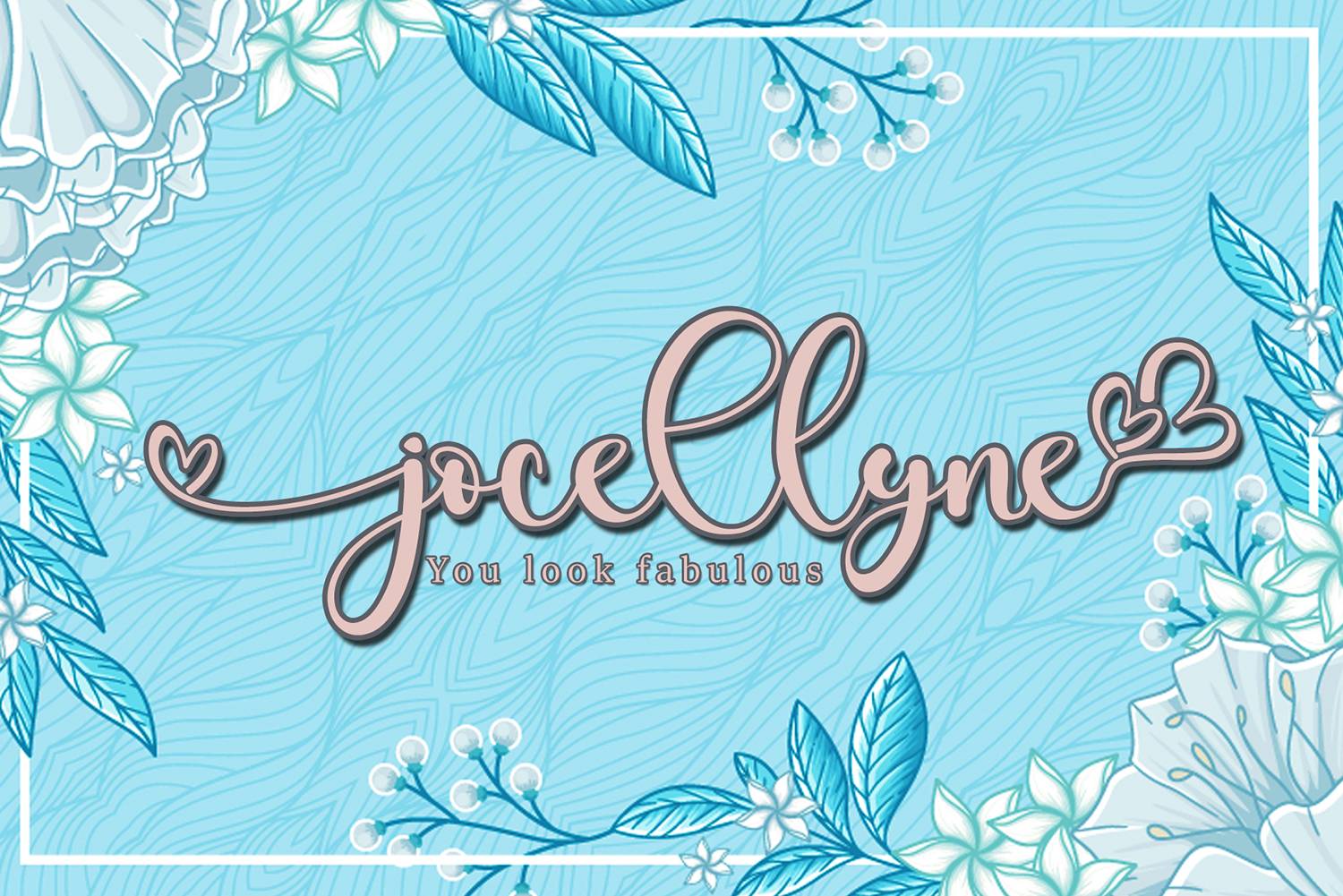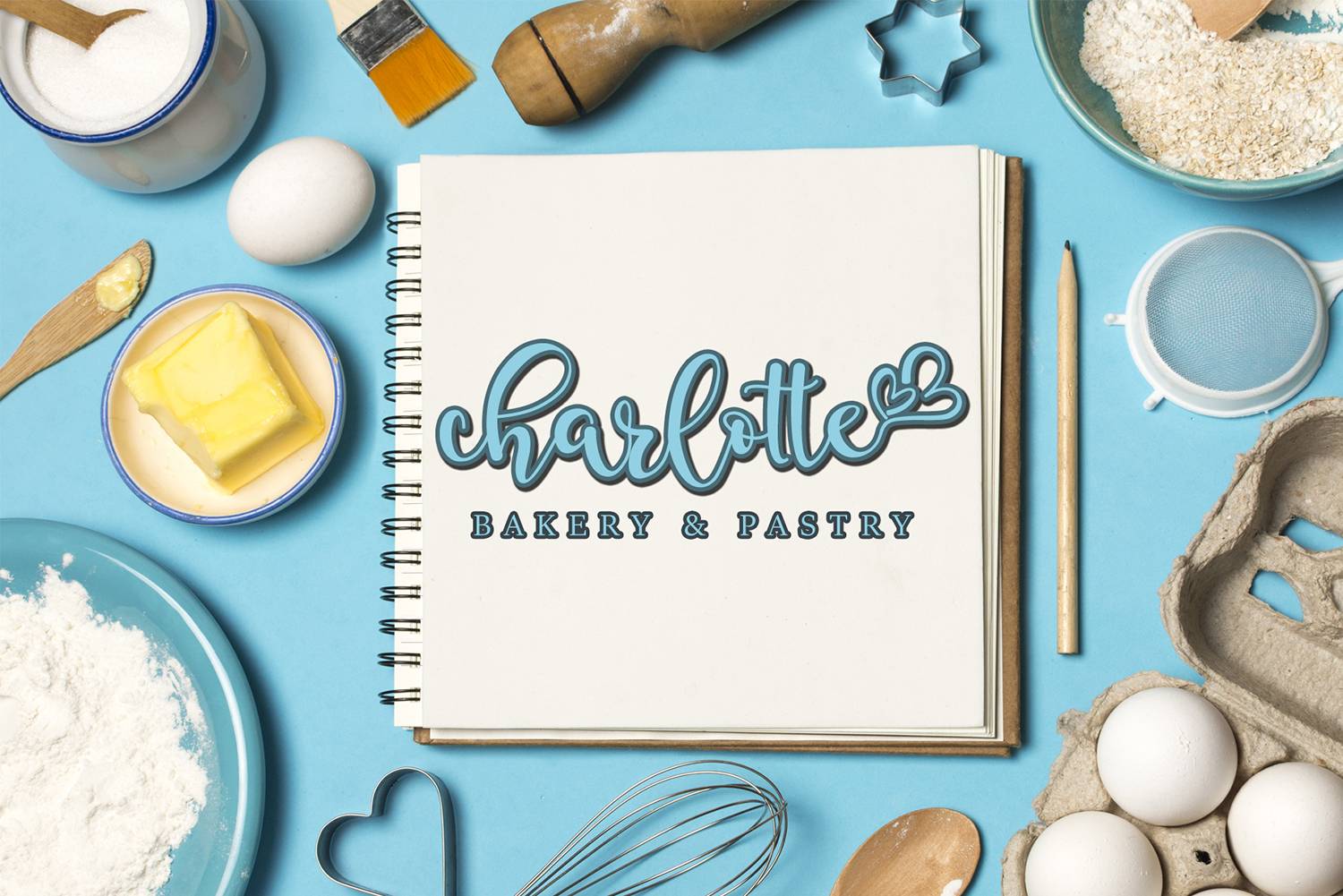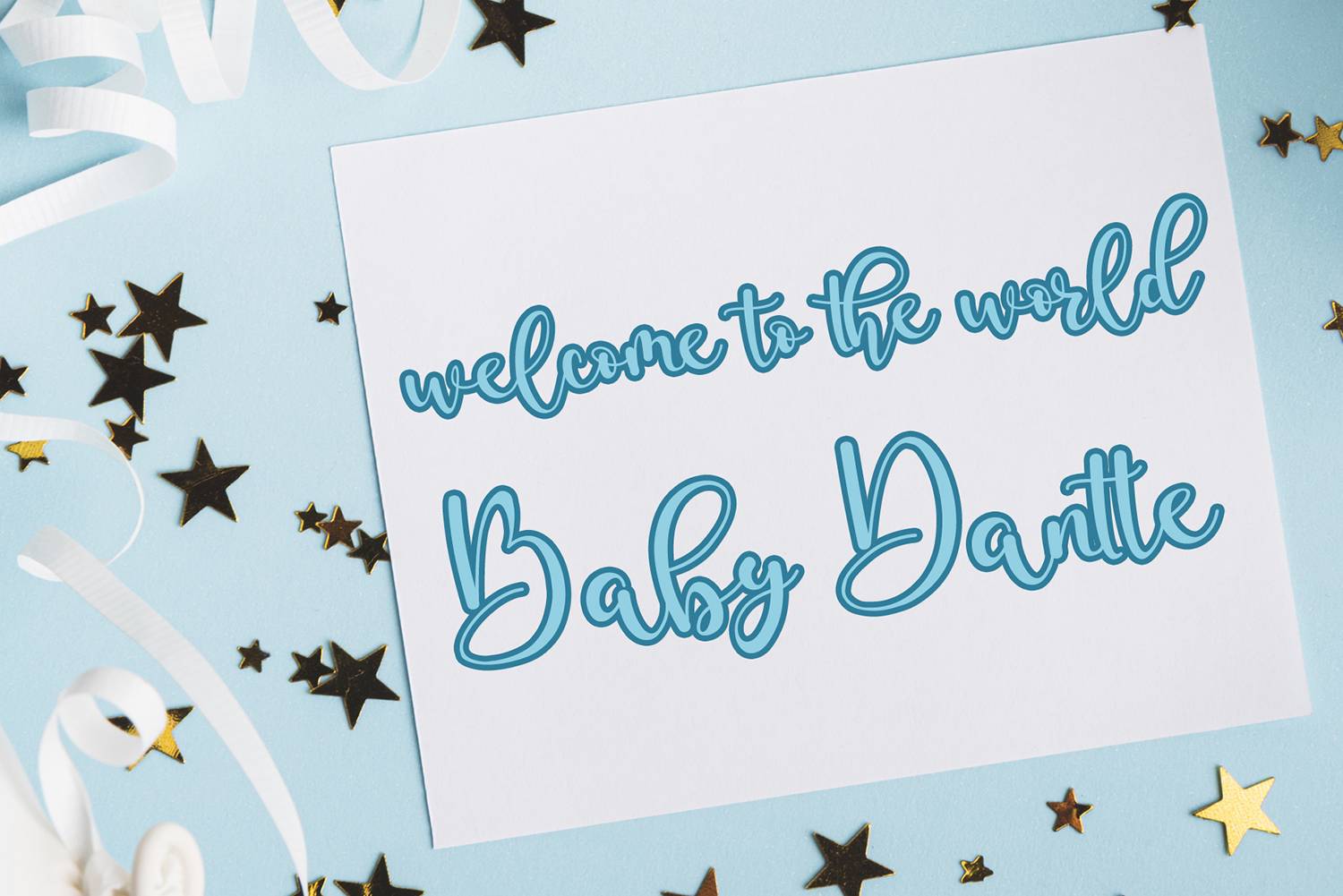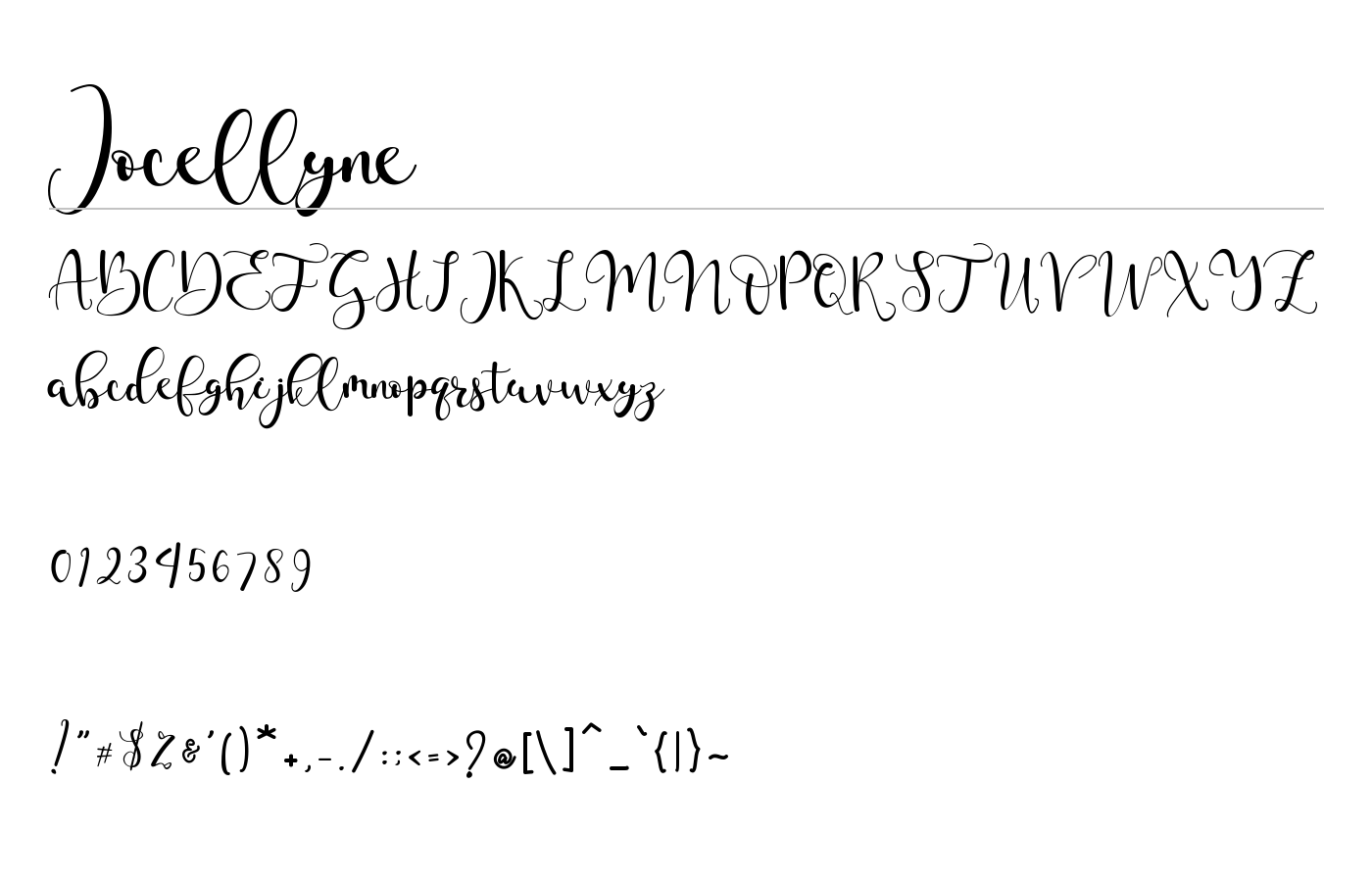
Jocellyne is a whimsical and elegant script font featuring flowing, hand-lettered strokes with playful swirls and loops, giving it a charming and feminine feel. Its moderate contrast and smooth curves make it perfect for invitations, branding, and decorative headlines where a sophisticated yet approachable style is desired. This font works best in creative and personal projects that seek to convey warmth and elegance.
Jocellyne Font
About Jocellyne Font
| Font family | Jocellyne Font |
| Designer | Tiny Hand Letter 2020 |